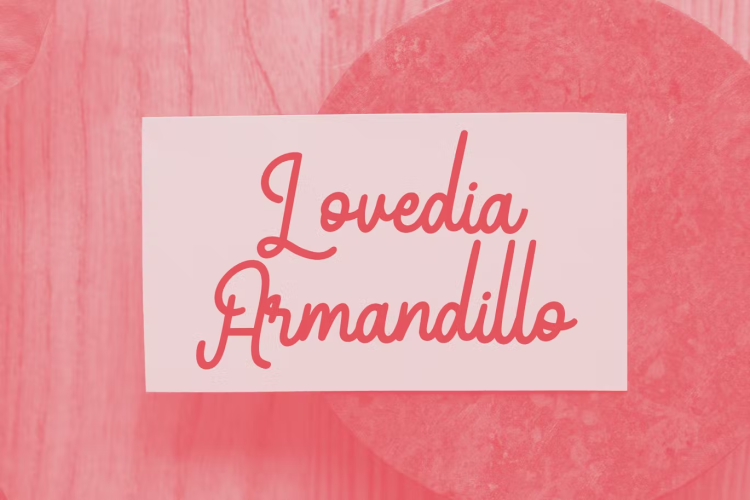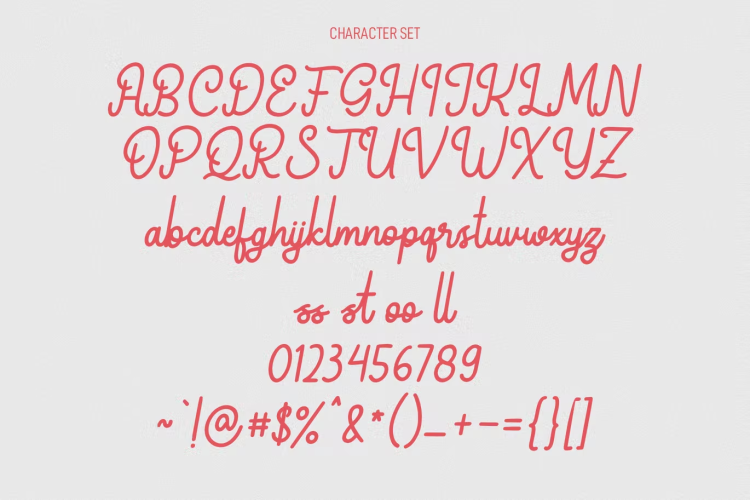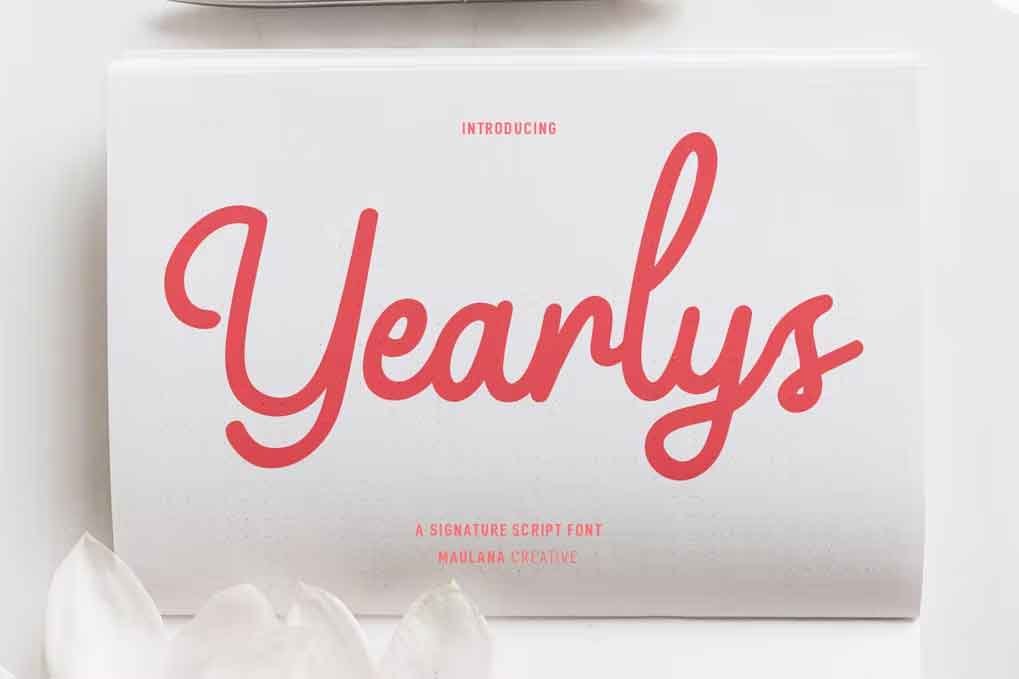
Yearlys Retro Script Font
Yearlys is a casual retro script font. With mono-line consist stroke, fun character with a bit of ligatures and alternates. To give you an extra creative work. Yearlys font support multilingual more than 100+ language. This font is good for logo design, Social media, Movie Titles, Books Titles, a short text even a long text letter and good for your secondary text font with sans or serif. Make a stunning work with Yearlys font.
Where Yearlys Retro Script Font works best
Yearlys Retro Script Font brings a personal, handwritten warmth to invitations, menus and place cards.
Craft brands — coffee, cosmetics, bakery — use scripts like Yearlys Retro Script Font for signature-style logos and labels.
Pair Yearlys Retro Script Font with a plain sans for quotes, stories and Pinterest pins that feel handmade.
What is Yearlys Retro Script Font good for?
Yearlys Retro Script Font is a Script And Handwritten typeface tagged Branding, Creative, Readable, Retro. It works well for headlines, logos, posters, social media graphics and branding projects that need a distinctive script and handwritten look.